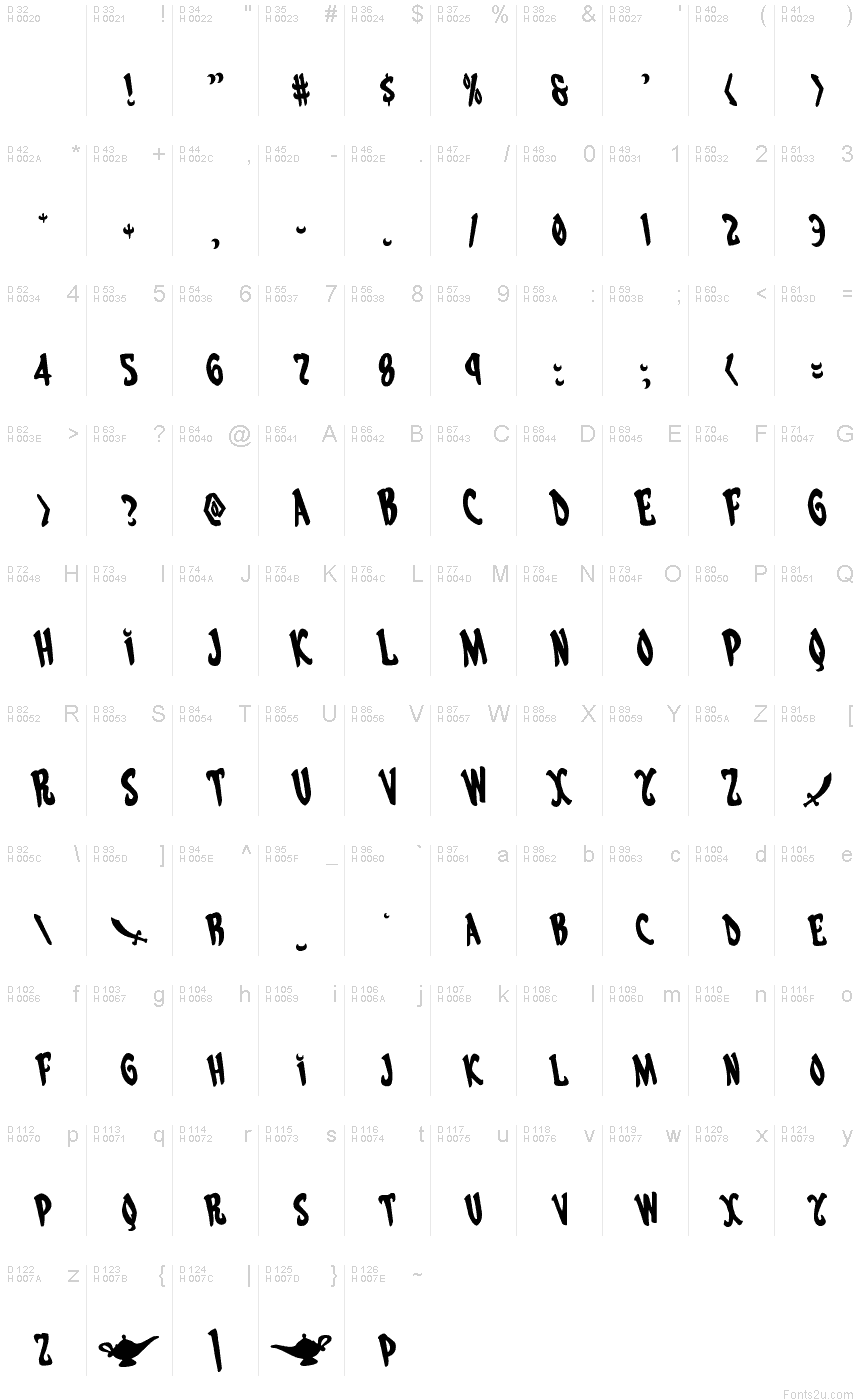
Eskindar Rotated by Iconian Fonts is a free Arabic-inspired display font with swollen verticals, sharp hooks, pinched joins, and rounded wedge-like endings that create an uneven, almost carved silhouette. The tall, tightly packed letters lean and bulge unevenly.
Middle Eastern themes and theatrical fantasy are the clearest match, especially for game titles, event posters, and music artwork that benefit from the lively, exaggerated outline and strong sense of movement. Its quirky contours also suit restaurant packaging and festival signage, where the lettering can become part of a bustling decorative border among patterned menus, banners, and illustrated motifs rather than neutral text.
Presentazione e campione visivo del carattere Eskindar Rotated Regular
Mappa dei caratteri di Eskindar Rotated Regular
Mappa dei caratteri di Eskindar Rotated Regular: Latino di base, pagina 1
Glifi del carattere Eskindar Rotated Regular — Latino di base, pagina 1
Eskindar Rotated